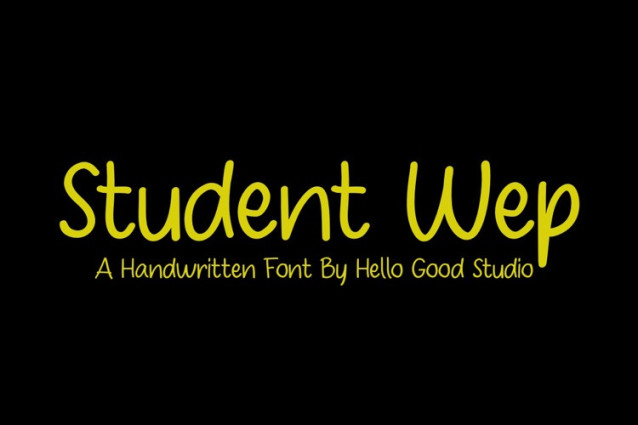
Student Wep Font
Student Wep Font is a simple and friendly handwritten font. Its natural and unique style makes it incredibly fitting to a large pool of designs. The only limit is your imagination!